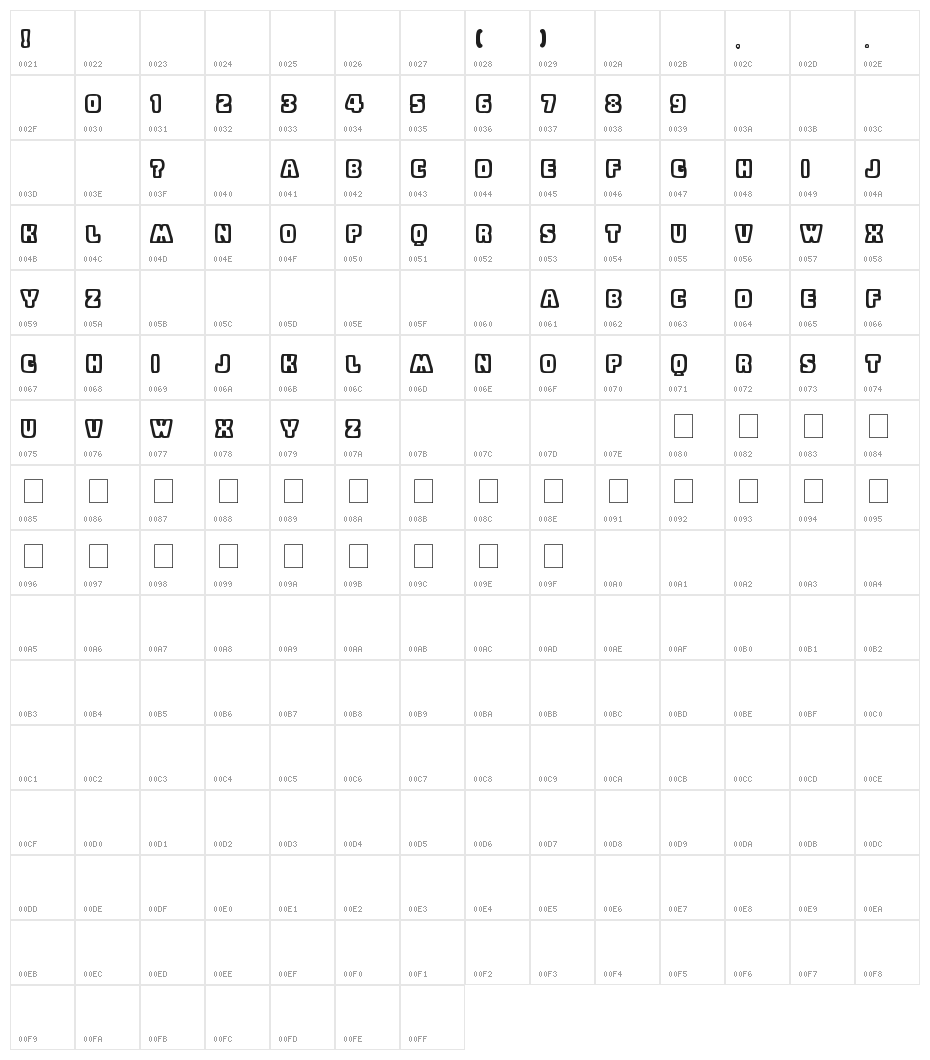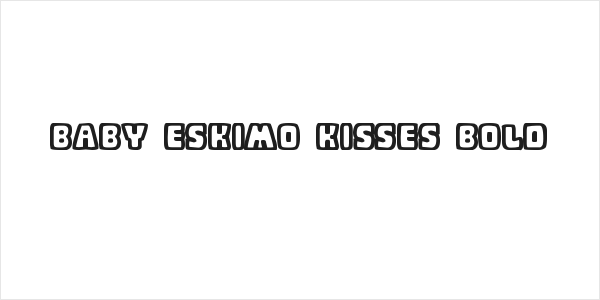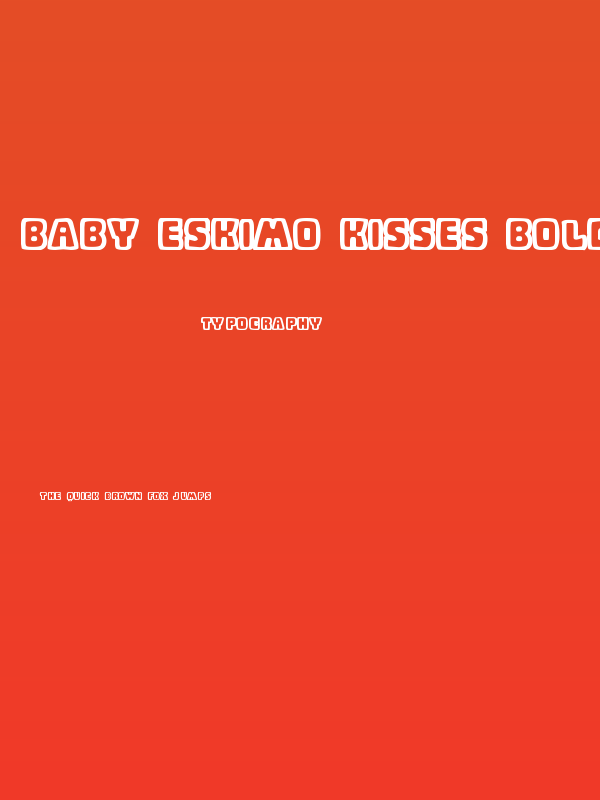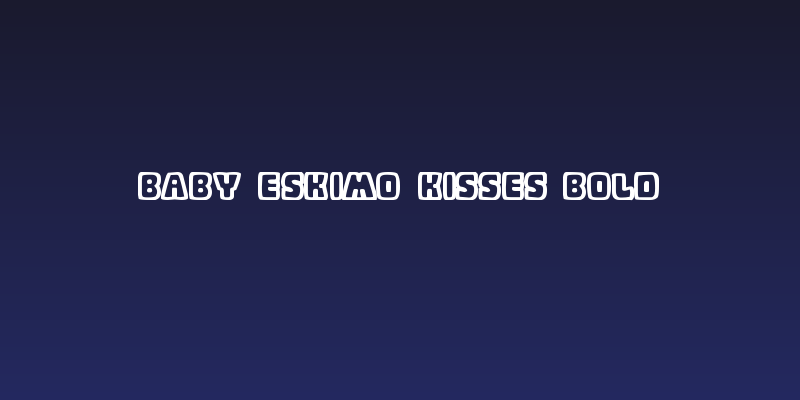
Baby Eskimo Kisses Bold Font
Baby Eskimo Kisses Bold Description
This playful and bold font features thick, rounded characters with a whimsical, cartoon-like appearance. Each letter is outlined with a consistent black border, adding a sense of depth and making the characters stand out. The font maintains a uniform thickness throughout, contributing to its bold and friendly look. Its design is reminiscent of children's books or playful branding, making it ideal for projects that require a fun and approachable aesthetic. The characters are evenly spaced, ensuring readability while maintaining a cohesive look. The font's unique style is both eye-catching and memorable, perfect for capturing attention in a variety of settings.
| Overall Style | Playful, Fun |
| Use Case | Headlines, Posters, Children's Books |
| Proposed Projects | Ideal for children's books, playful branding, posters, and any project needing a fun, approachable aesthetic. |